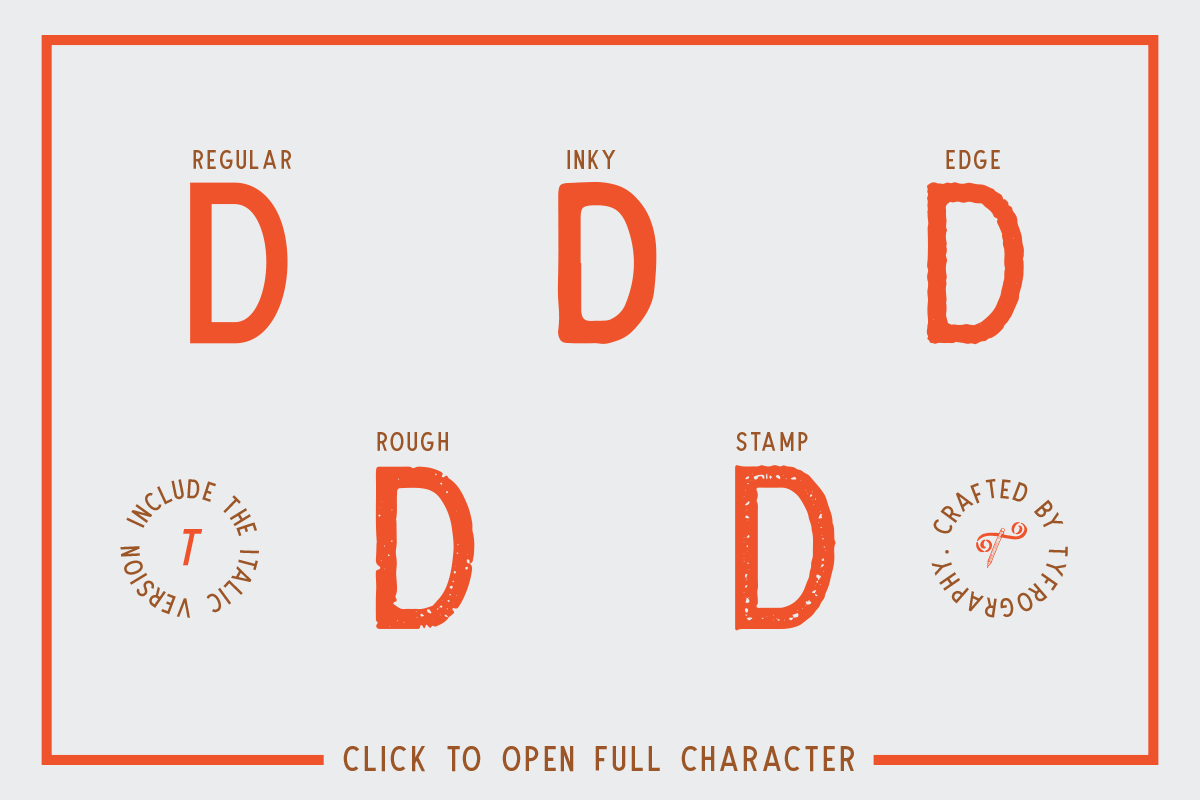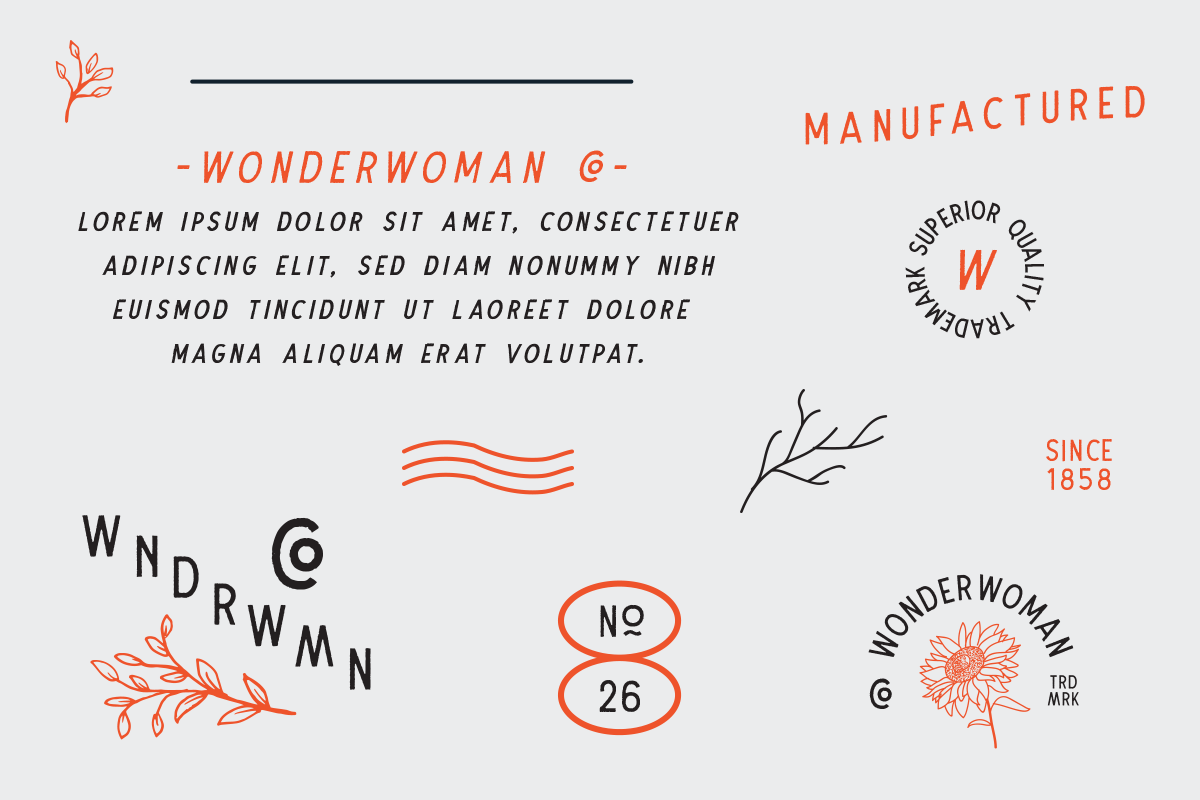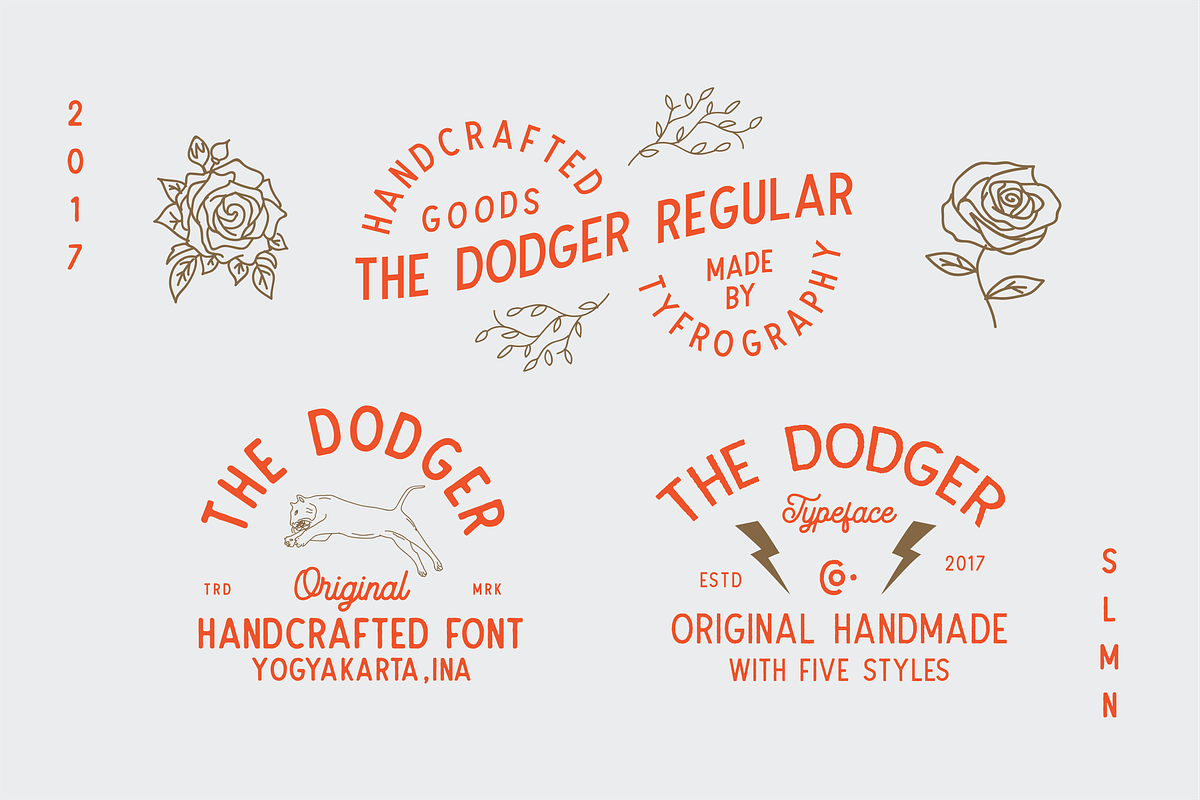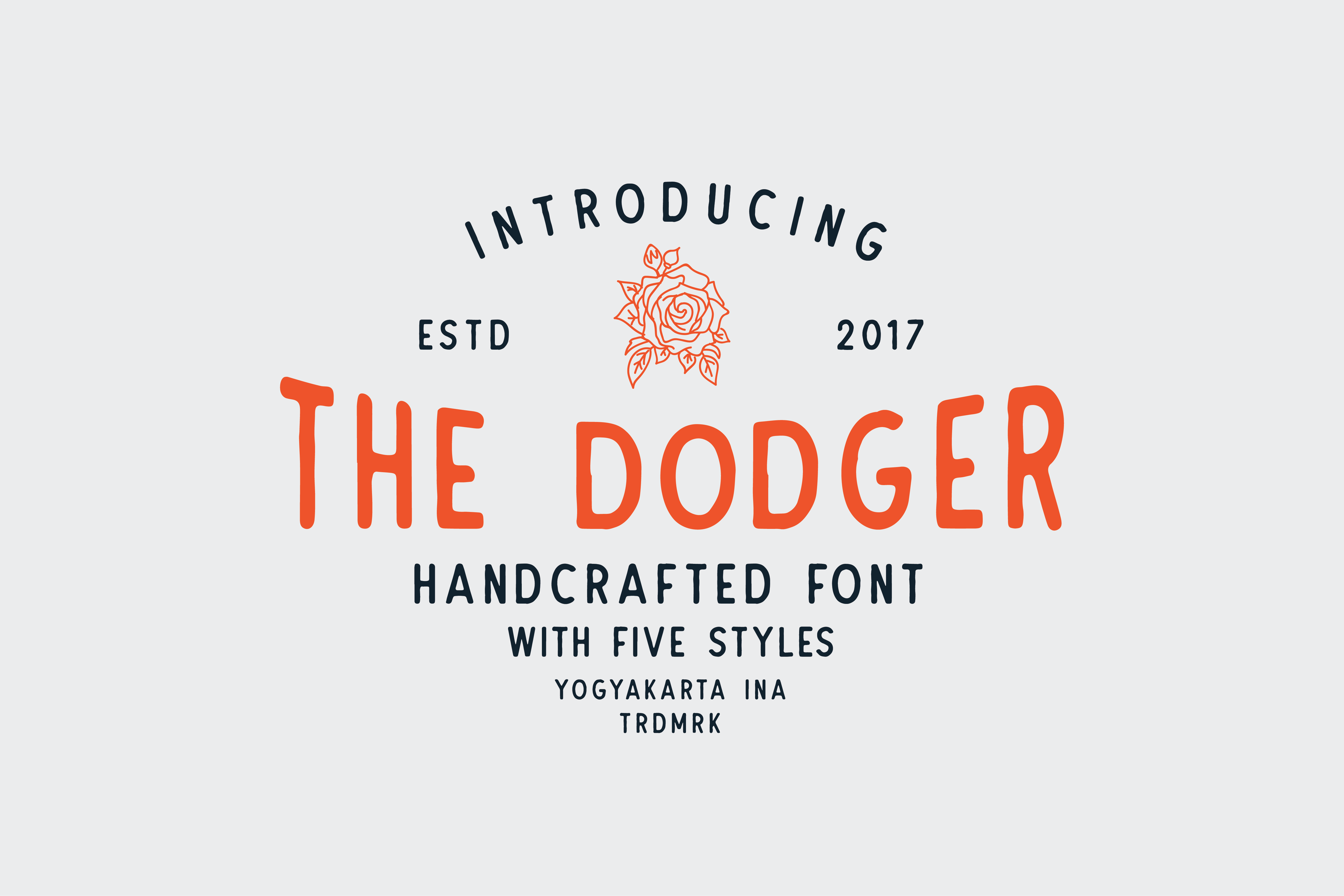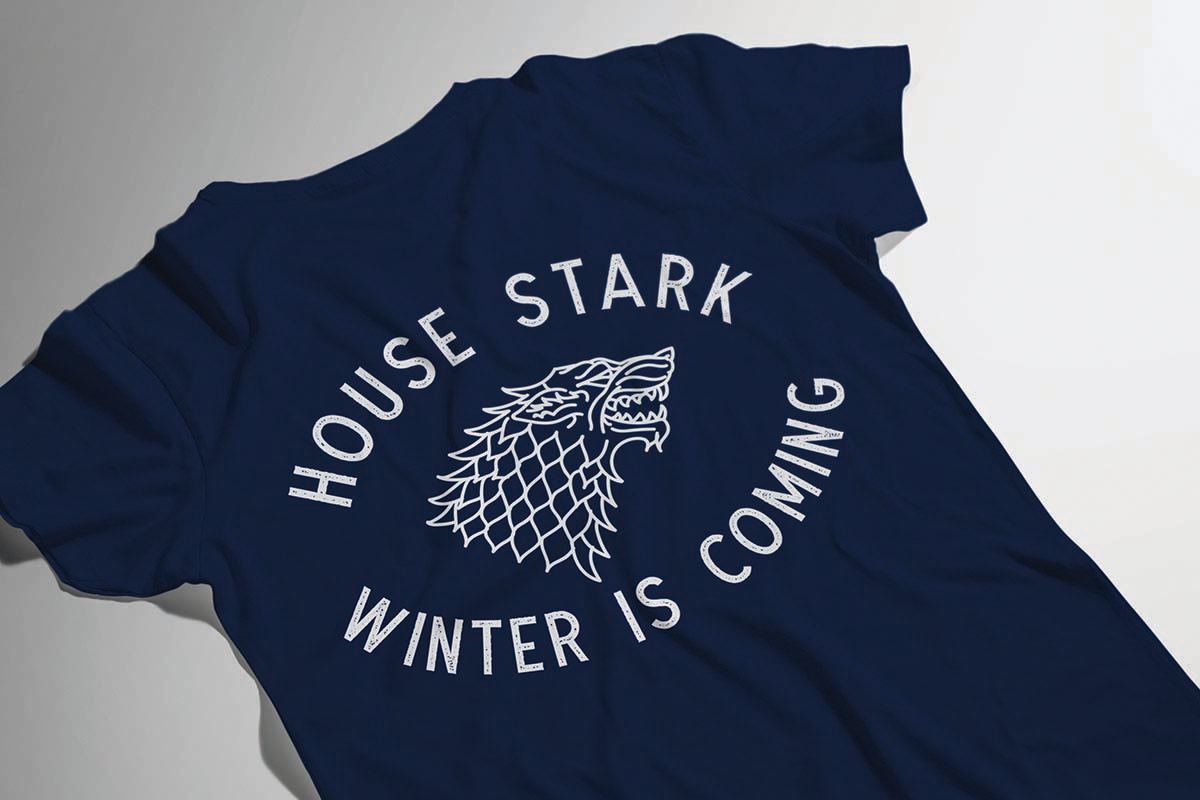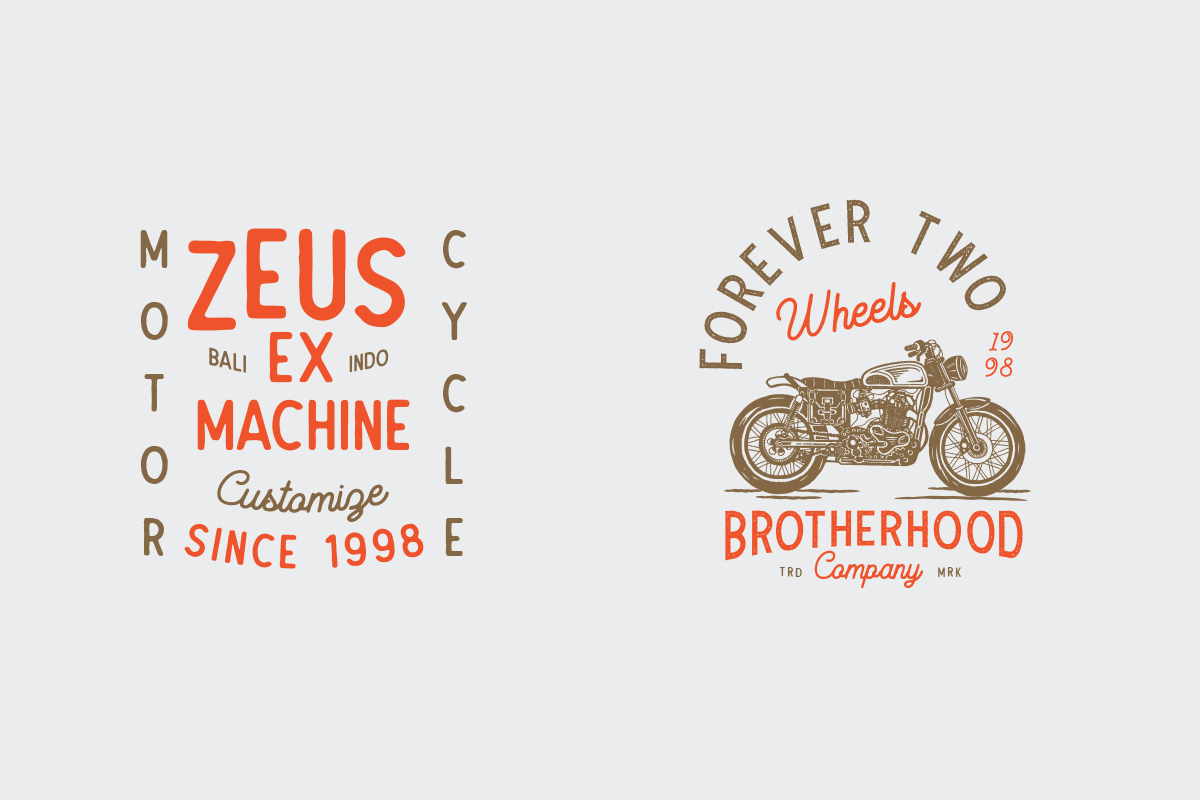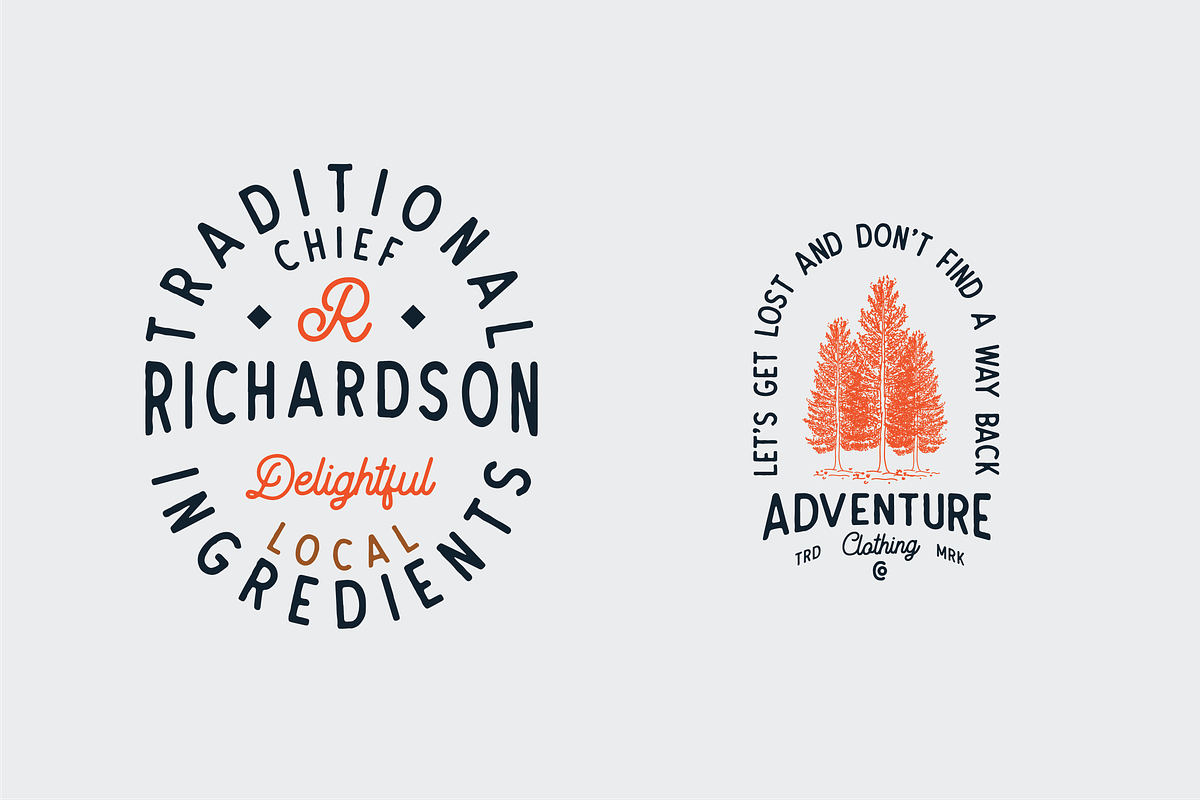
The Dodger + Extras (11 Fonts !)
The Dodger is a family of FIVE sans serif font designed with carefully handcrafted. Also suitable for branding, T-shirt, Wedding Invitation, Vintage Design, Logotype, and any project. With five style make you easier to design everythings, and a script bonus to make better design.
The Dodger - Reguler
The Dodger - Inky
The Dodger - Stamp
The Dodger - Edge
The Dodger - Rough
Special Character Also added some special character you can check in the picture.